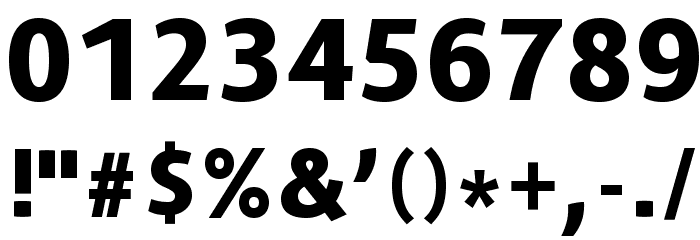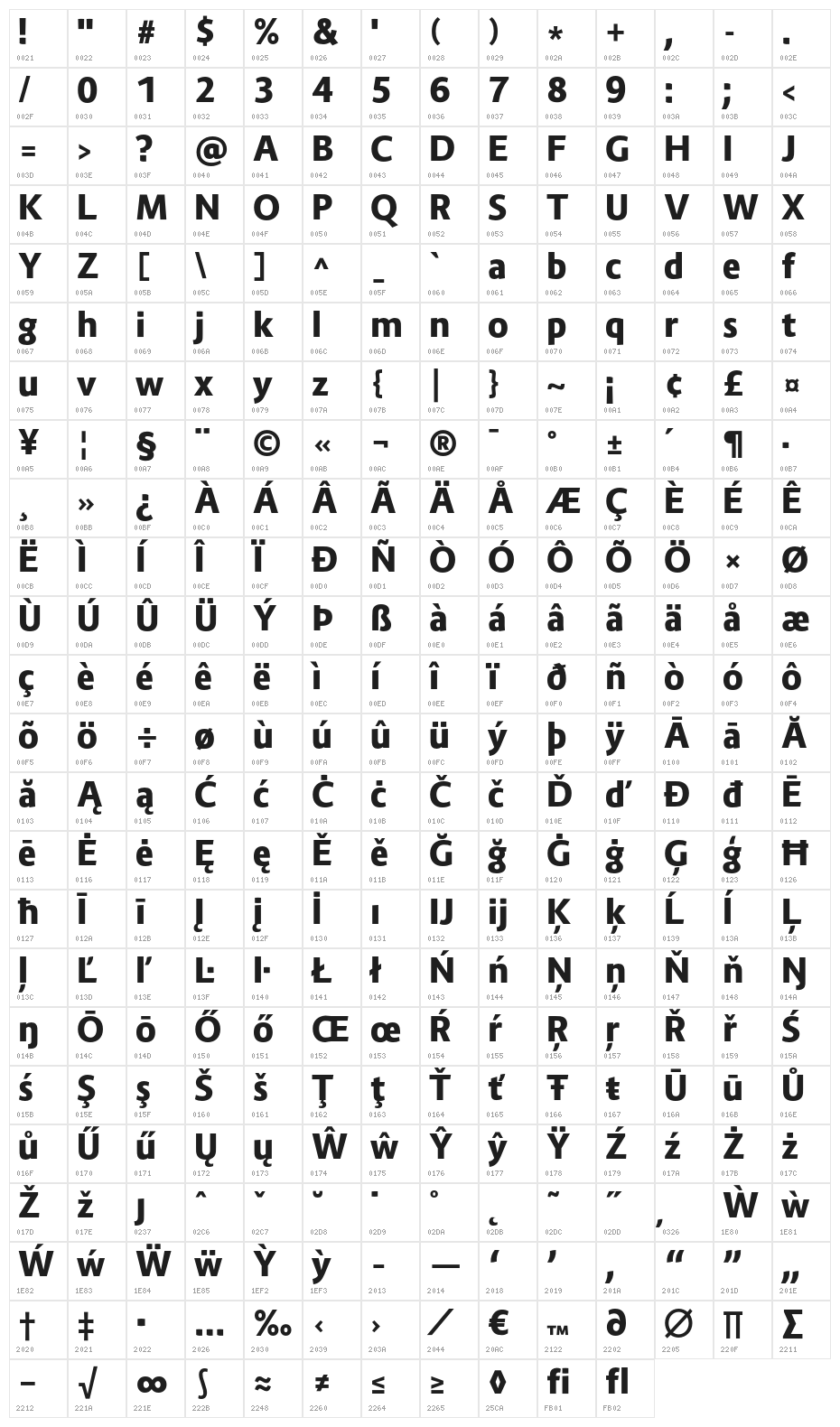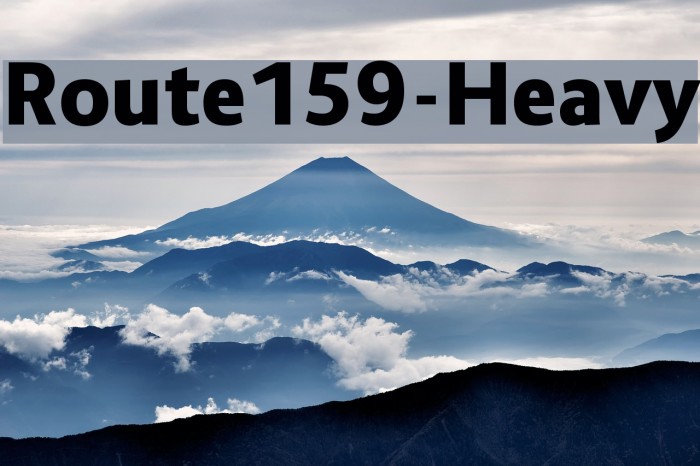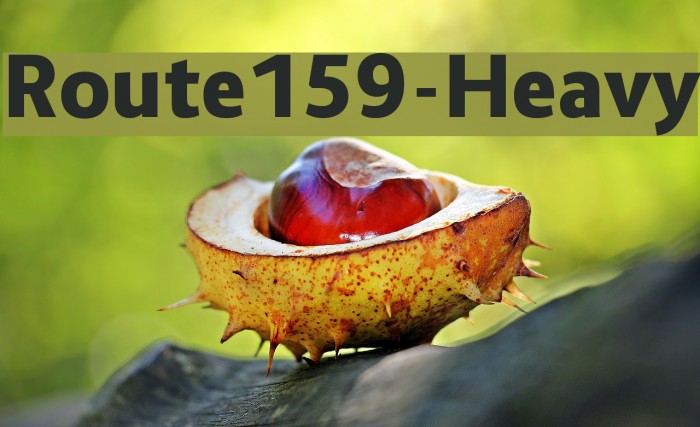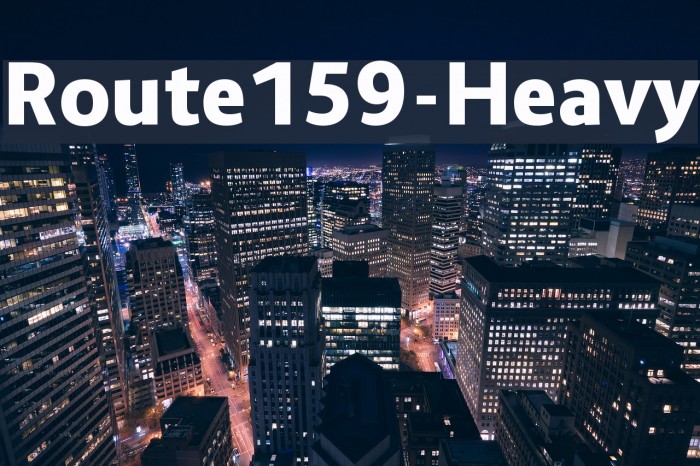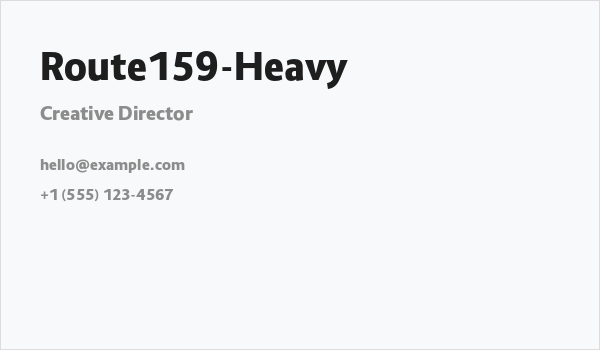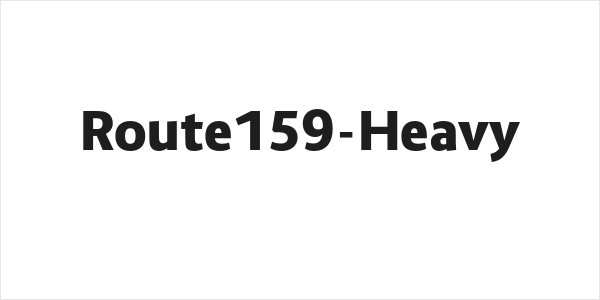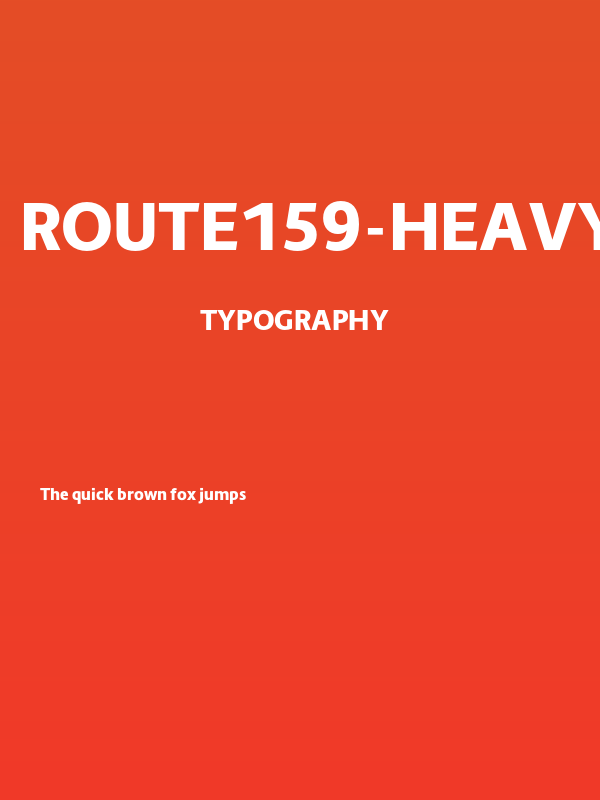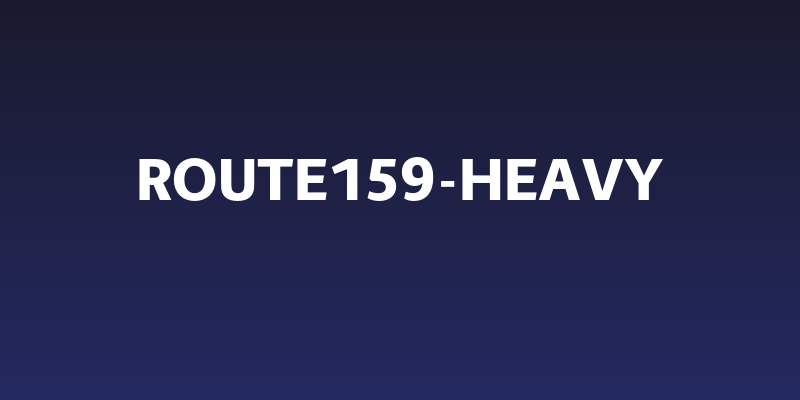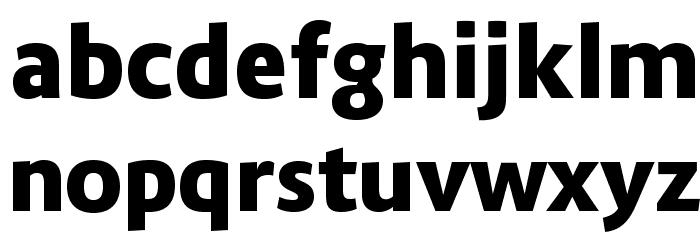
Route159-Heavy Font
Route159-Heavy Description
This typeface is a bold and impactful sans-serif font, characterized by its heavy weight and strong presence. The letters are uniformly thick, providing a consistent and robust appearance across both uppercase and lowercase characters. The numerals and special characters maintain the same boldness, ensuring readability and emphasis. The font's design is clean and modern, with a slight geometric influence that adds to its contemporary appeal. It is well-suited for making statements in headlines or titles, where clarity and attention are paramount. The spacing between characters is normal, allowing for easy reading without feeling cramped or overly spaced.